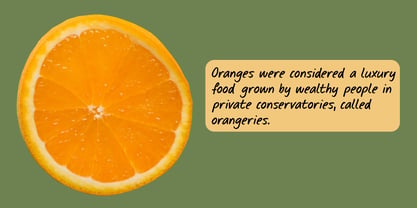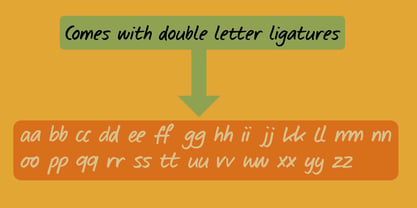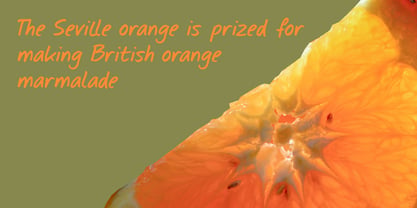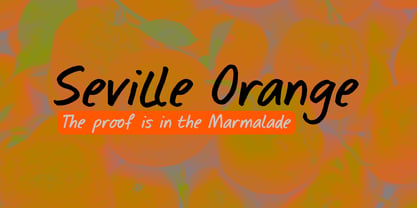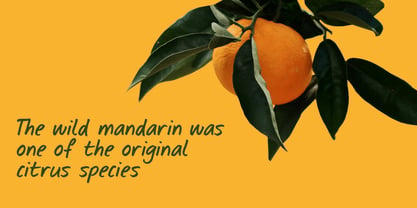
Seville Orange Pro
by Hanoded
The Seville Orange Pro Font Family was designed by David Kerkhoff and published by Hanoded. Seville Orange Pro contains 2 styles and family package options. More about this family
It is Orange time! The shops are flooded with sweet oranges and other citrus fruits, but for some reason, Seville (or Bitter) oranges are very difficult to obtain where I live. I really like marmalade, but you can only make it with Seville oranges. Maybe I should move to the UK… ;-)
Seville Orange is a handwritten font. I used a marker pen and rough paper to create it. Seville Orange comes with a full set of double letter ligatures and extensive language support.
Hanoded is run by Dutchman David Kerkhoff. His fonts are a mishmash of styles, as he just creates whatever pops into his head. You will find a lot of brush fonts in his collection, as his favourite tools are brushes and Chinese ink, with cartoon style fonts and script fonts complementing his repertoire. Aside from making fonts, David occasionally guides tours in far-flung places, renovates his '30's house and tries reasoning with his wife and (teenage) kids. Not an easy task!